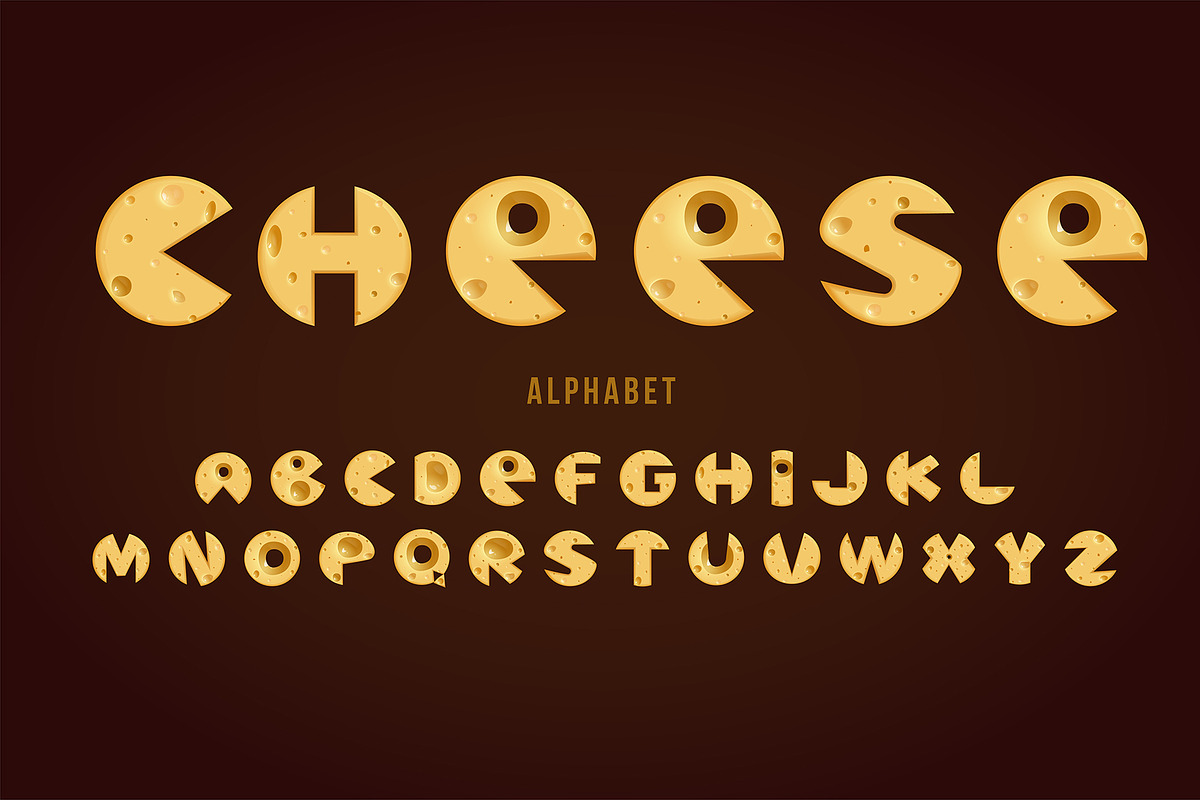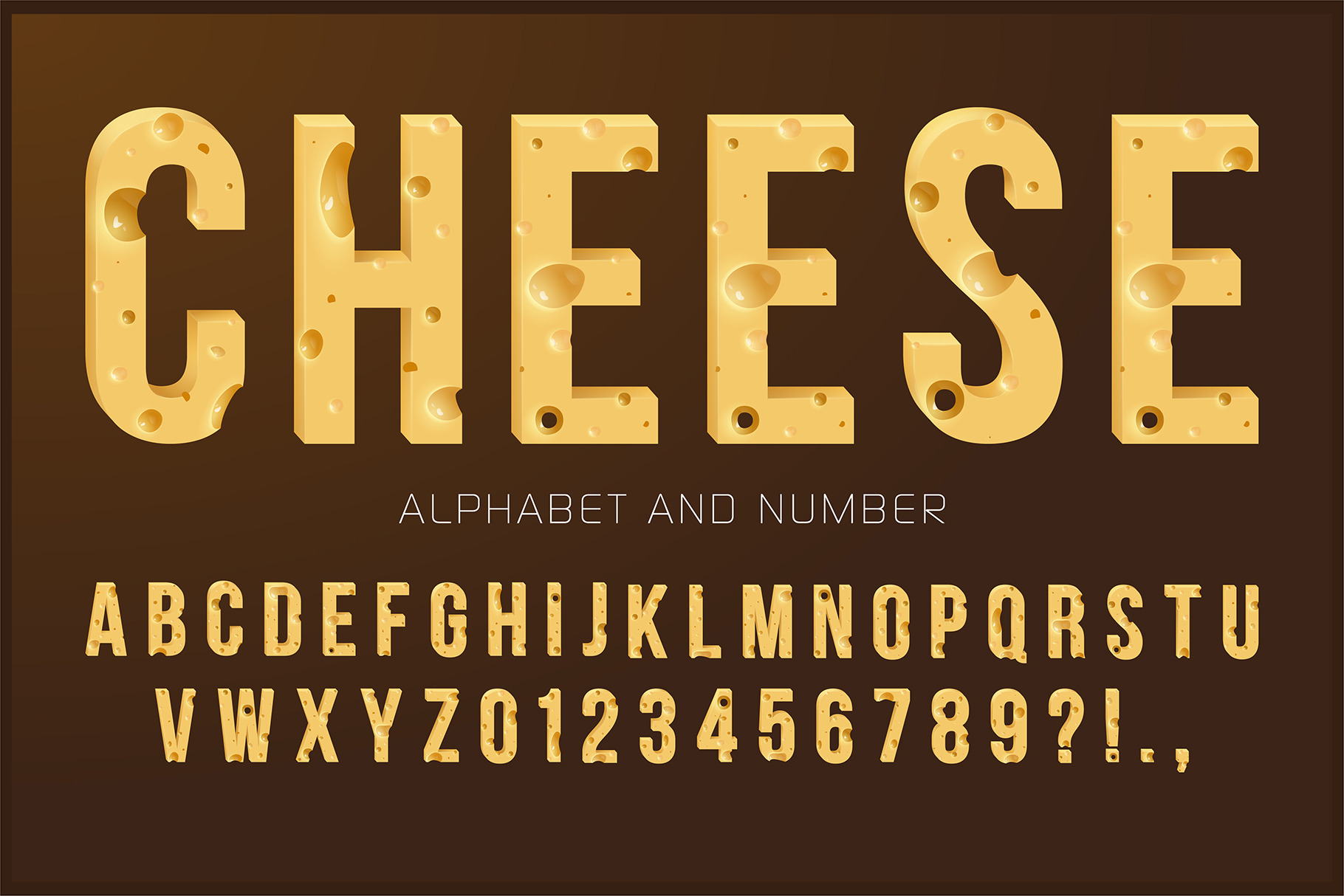
Cheese Alphabet Font Set
Cheese Alphabet Font Set. Realistic Swiss Cheese Letters and Numbers with Big Holes, Tasty Yellow Dairy Typography for Food Design, Menu, Packaging and Creative Gourmet Projects - EPS (Not a Font!)
- Uppercase letters A - Z
- Numbers 0 - 9
- Clean, modern, and unique alphabet design